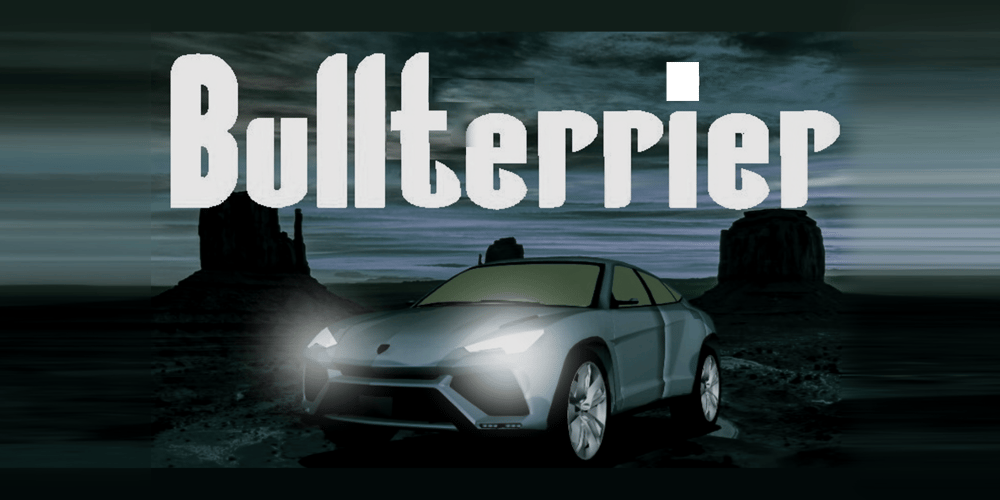
Bullterrier
Bullterrier font
Bullterrier Font Family was designed by bsmbang wisudyantoro and published by Beewest Studio. Bullterrier contains 1 styles and family package options. Bullterrier is a bold type of font that has a unique character than other bold fonts, Bullterrier has a strong but soft character, with an elegant and fresh theme, Bullterrier is provide your something different unique bold font . Its weight excels in logos, posters, social media, magazine titles, clothing, large print formats – and anywhere you want to see it. Inspired by the design styles that are currently popular, let’s make your imagination come true with Bullterrier.